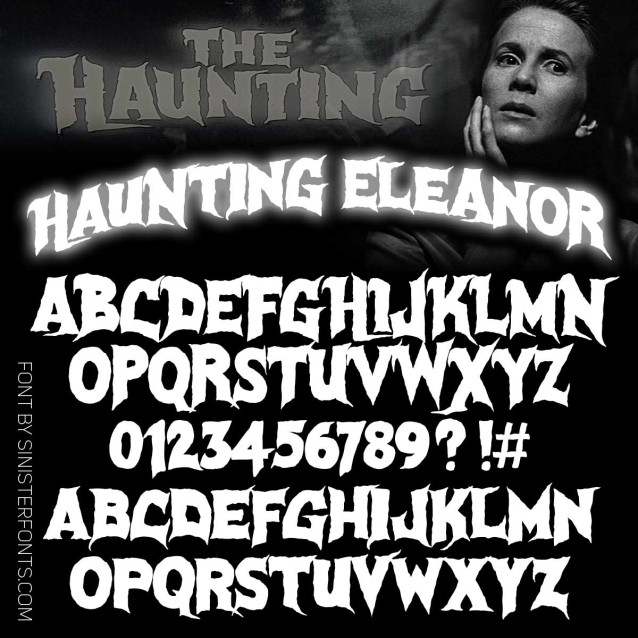
Haunting Eleanor Font
Haunting Eleanor Font: is a handcrafted horror font inspired by the lettering on classic sci-fi and horror movie posters. This font is perfect for Halloween party invitations, posters, packaging design, and any project where you want to create a “vintage creepy” feel.
Created 2024, hand-lettered.
This font is intended for specialty and graphic uses. It will look just awful if used in a paragraph format.